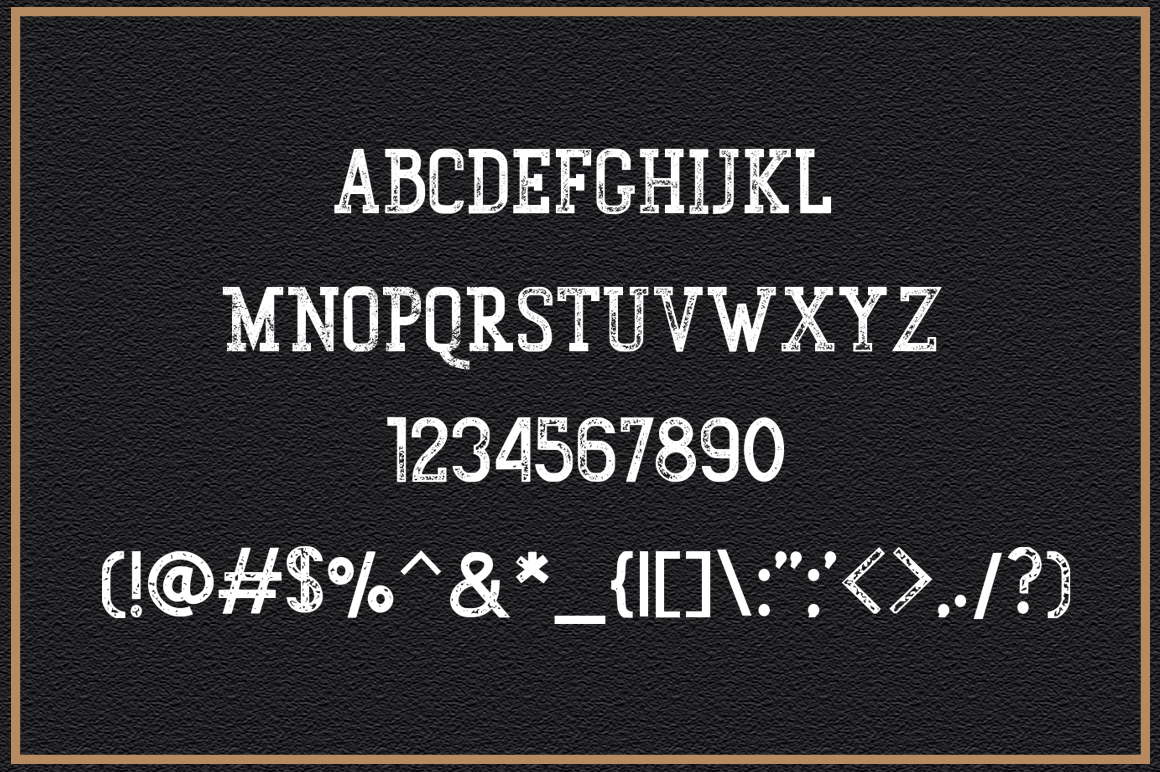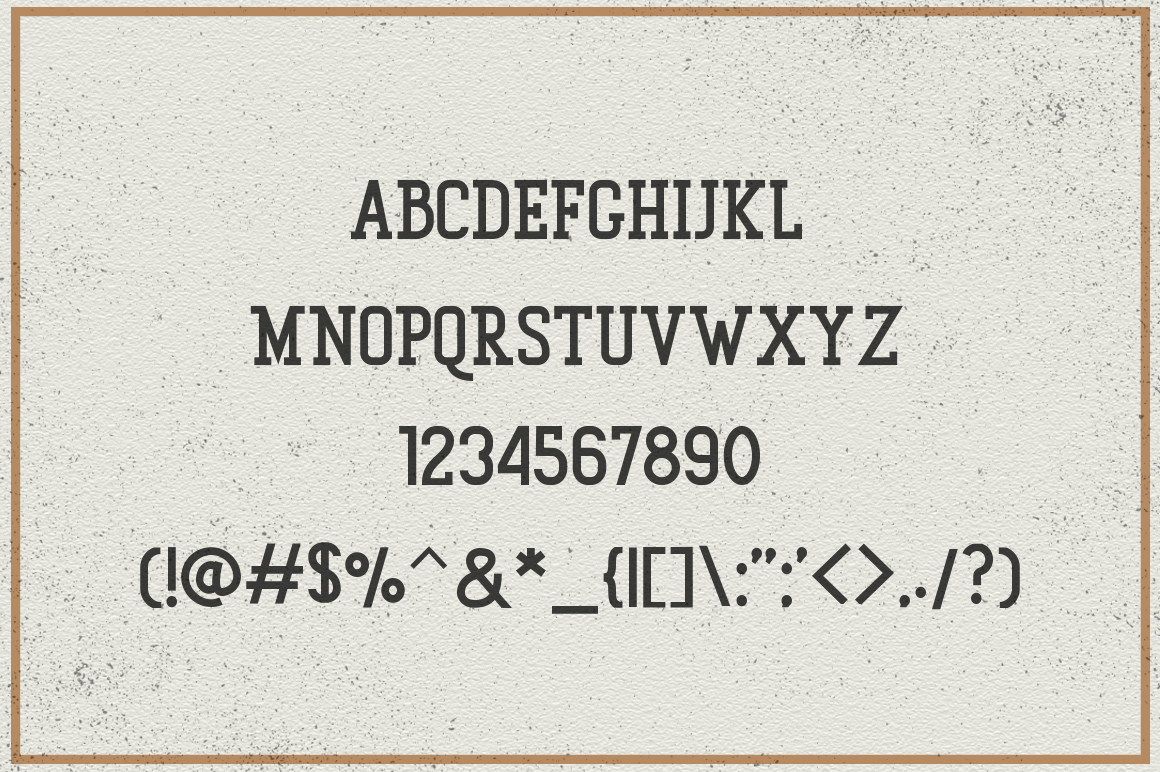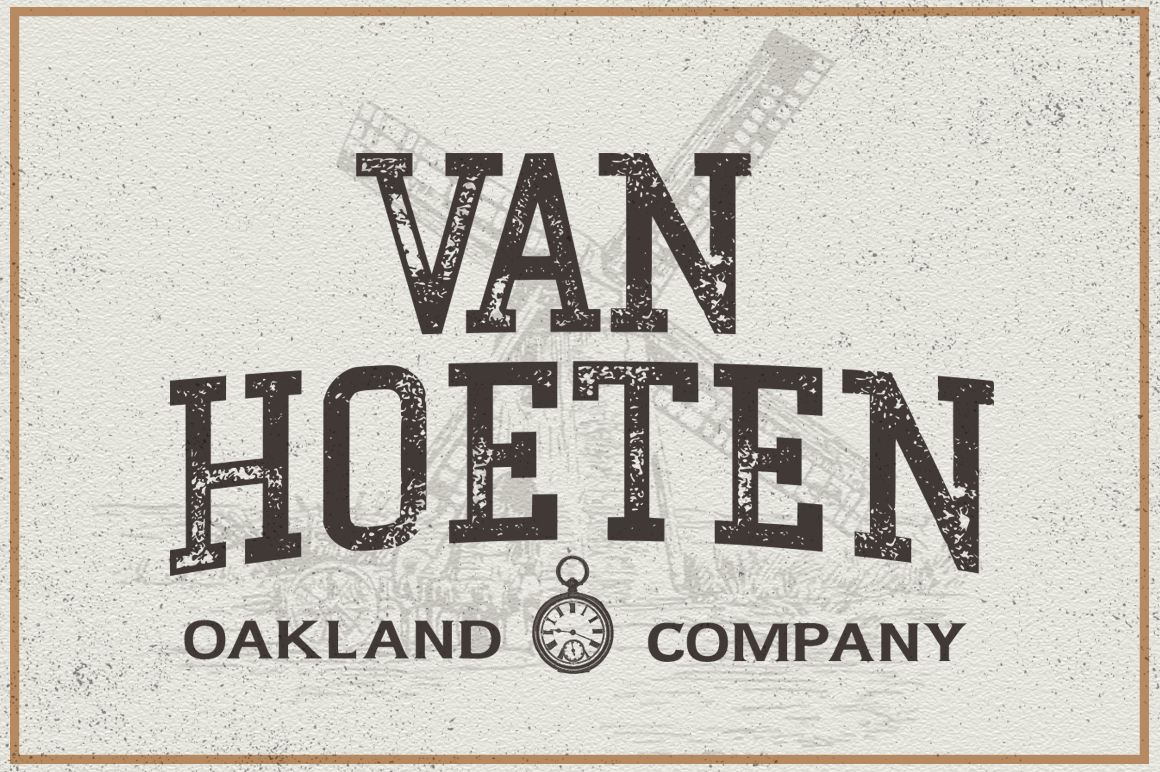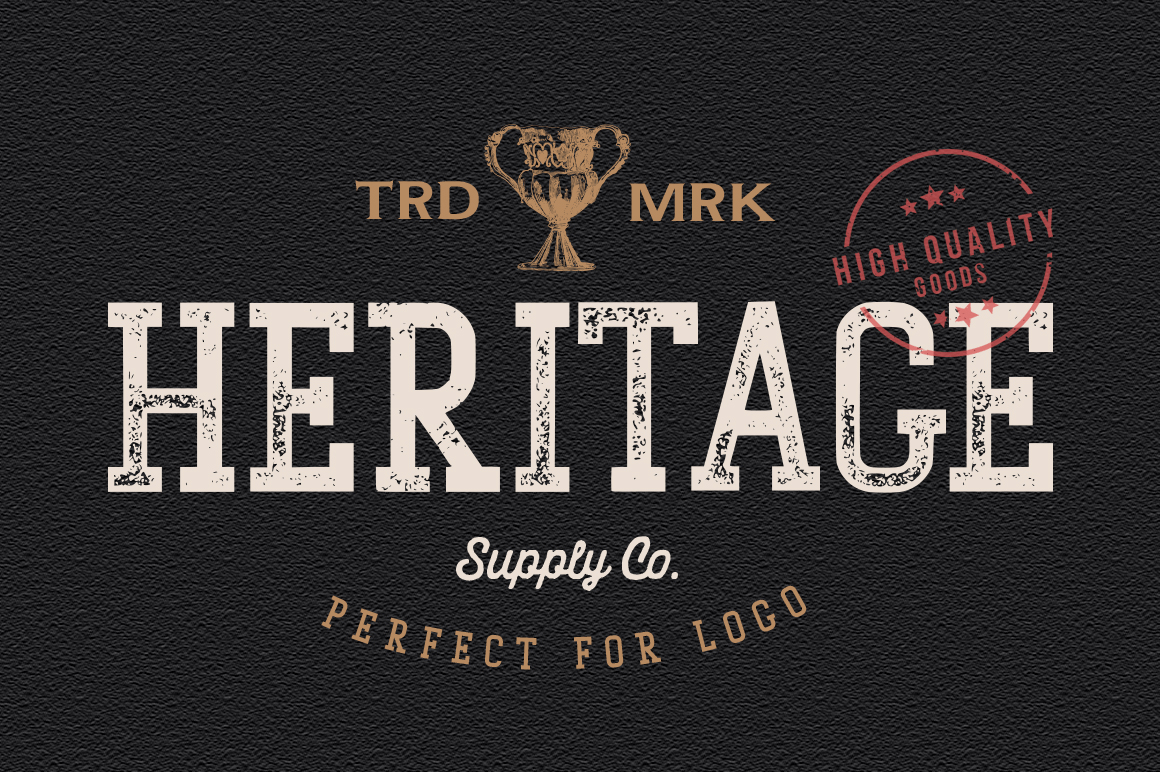
Make your project look better than ever with our fonts! So, this time I made a font called Gunberg Slab Serif that has a vintage theme that you can use for your project. This font has 2 styles – Clean and Rough – for use according to the type of project.…